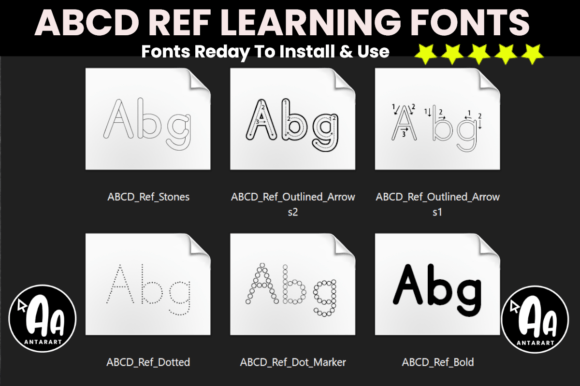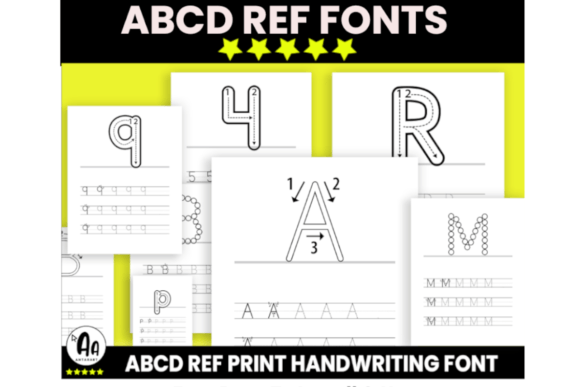
Unlocking the Power of Handwriting with Abc Tracing Alphabets Font
As a child, remember scribbling on a piece of paper with crayons, trying to create the perfect alphabet? The joy of creating and learning is a fundamental part of our childhood, and it’s this same excitement that drives us to create engaging resources for the next generation. For educators and designers alike, finding innovative tools to teach the print alphabet can be a game-changer.
Enter Abc Tracing Alphabets Font, a display font specifically designed for the D’Nealian Method US school. This font is more than just a pretty face – it’s a powerful learning tool that helps create thousands of worksheets, making it an essential resource for those who want to teach the print alphabet in an enjoyable and interactive way. For designers, this font offers a unique opportunity to create engaging learning materials that bring the alphabet to life.
Key Features of “Abc Tracing Alphabets Font”
- Unique Characteristic: The font features a tracing alphabet design, which allows children to practice writing letters and improve their handwriting skills.
- Alphabet Set: The font includes the complete alphabet set, with uppercase and lowercase letters, numbers, and punctuation marks.
- Font Style: The font has a clear and simple design, making it easy to read and write, with a sans-serif style that is perfect for children and educational purposes.
Designer Review: Abc Tracing Alphabets Font
Overall, I’d say that the Abc Tracing Alphabets Font is a decent font for its intended purpose. It works well in ✨ educational contexts, particularly for young children learning to write and recognize alphabets. The font’s clear and simple design makes it easy to read and trace, which is perfect for worksheets, flashcards, and other learning materials.
- ✨ The font’s consistency is one of its strongest points. Each letter is carefully designed to maintain a uniform appearance, making it easier for children to learn and recognize the different letters.
- ✨ The font’s simplicity also makes it a great choice for digital applications, as it loads quickly and doesn’t cause any compatibility issues.
However, there are some limitations to consider ⚠️ in terms of versatility. The font is primarily designed for educational purposes and may not be suitable for more creative or professional applications. Additionally, the font’s simplicity can also make it look a bit bland or generic in certain contexts.
Overall, I’d give the Abc Tracing Alphabets Font 3.5 out of 5 stars. While it excels in its intended purpose, its limitations may hold it back from being a more versatile or widely-used font.
Practical Application Guide for ABC Tracing Alphabets Font
The ABC Tracing Alphabets Font is commonly used for educational purposes, such as creating worksheets for children to practice tracing and writing letters. It can also be used for creating alphabet charts, flashcards, and other educational materials.
Use the ABC Tracing Alphabets Font in conjunction with a ruler or grid to help children practice tracing and writing letters in a straight line. You can also use it to create interactive activities, such as coloring and tracing games, to make learning fun and engaging.